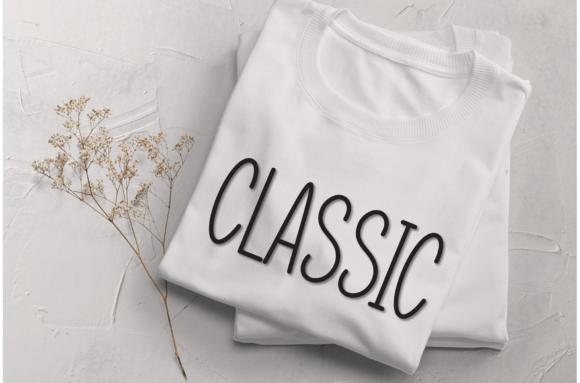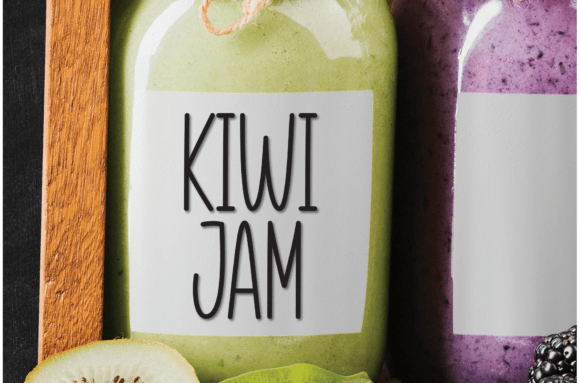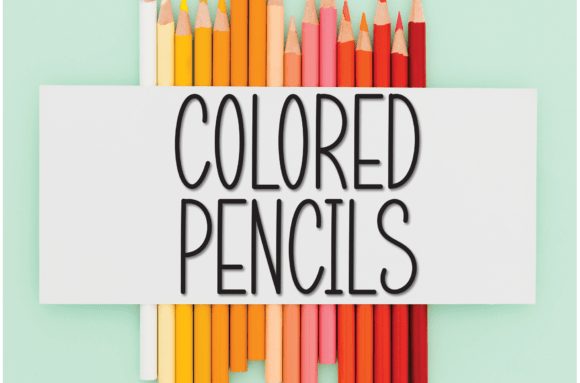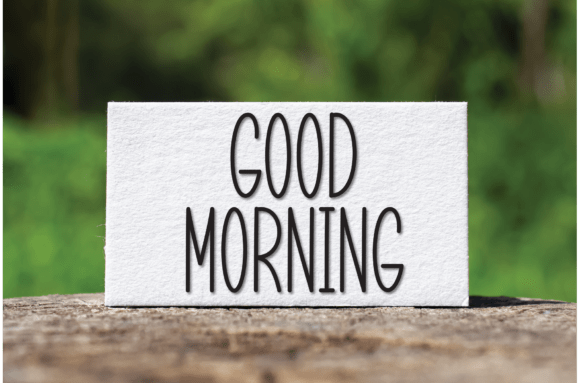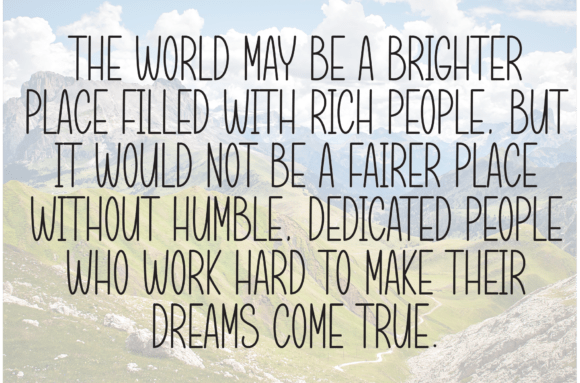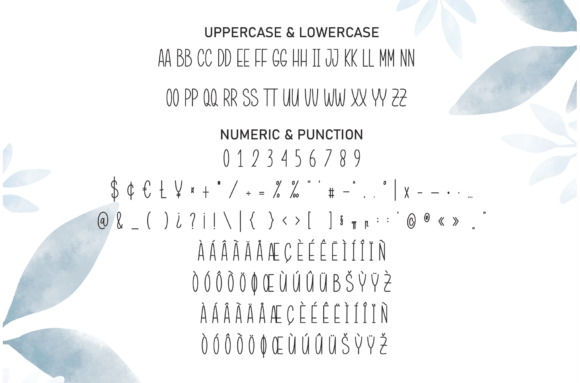
Introduction to Samantha Caligraphy Font
Samantha Caligraphy is a casual and neat display font that combines simplicity with a friendly, approachable vibe.
Featuring clean lines, balanced letterforms, and subtle rounded edges, it captures the essence of modern handwritten typography with a polished finish Ideal for branding, headlines, packaging, and digital content, it adds a warm and inviting touch to any design.
Key Features of Samantha Caligraphy Font